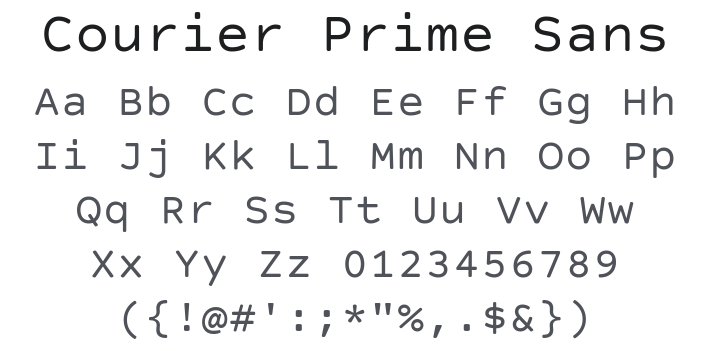
Courier Prime Sans Font Family
by Quote-Unquote Apps
About Courier Prime Sans
The goodness of Courier Prime without the serifs.
A brand-new editing typeface that’s sharp on the screen and easy on the eyes.